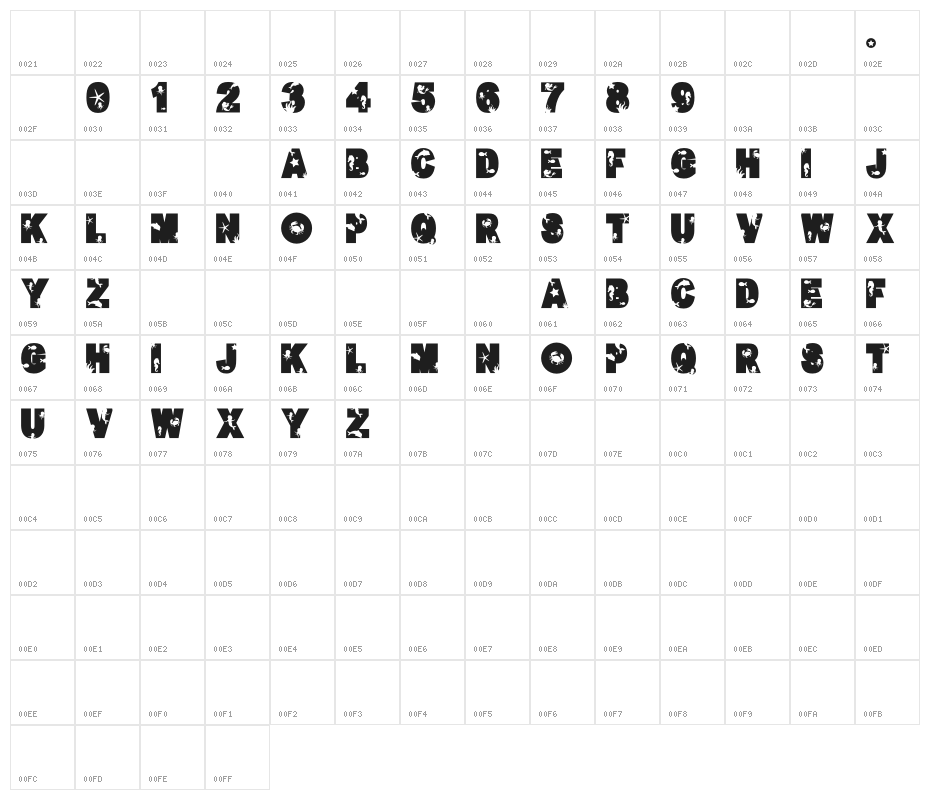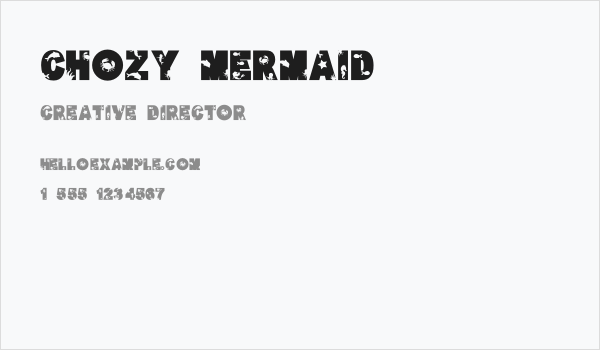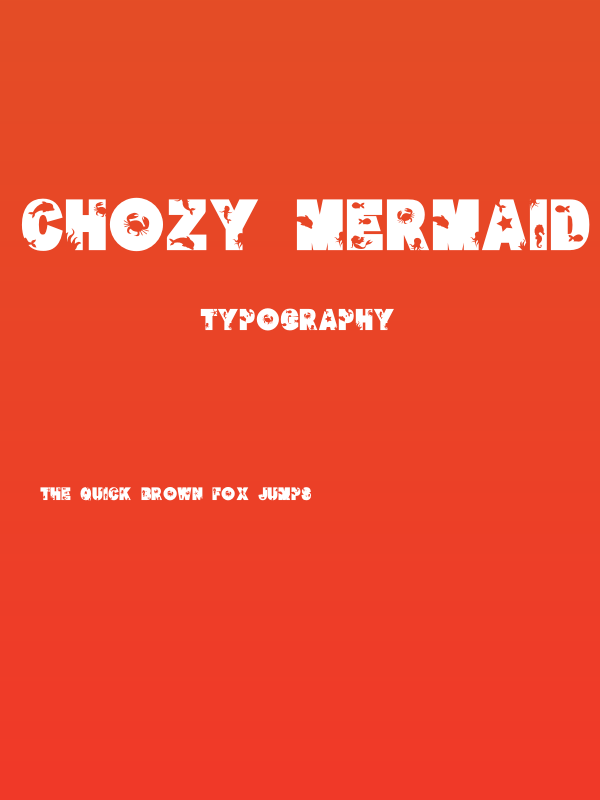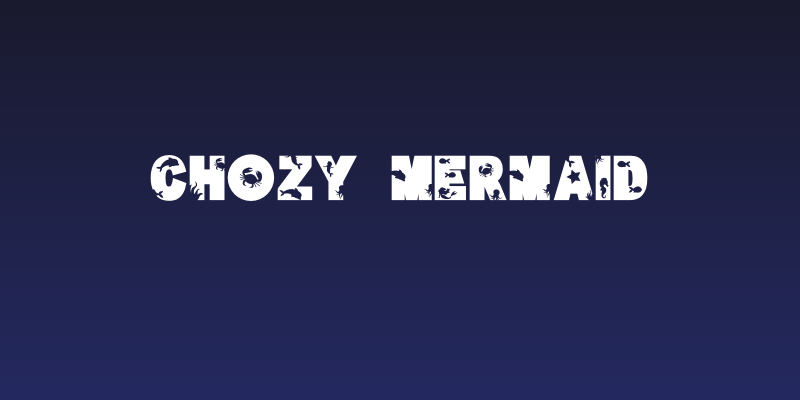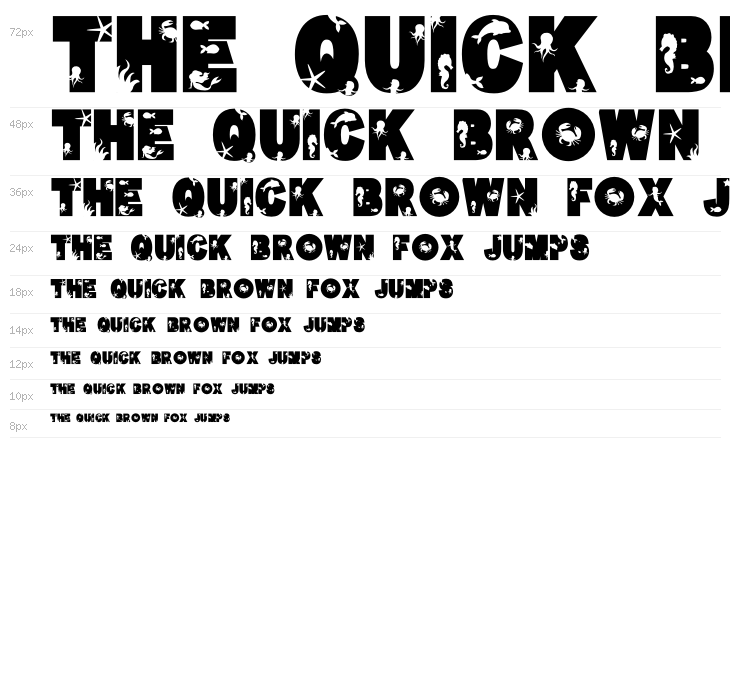
Chozy mermaid Font
Chozy mermaid Description
This decorative font features bold, blocky letters with intricate, whimsical sea-themed cutouts, including mermaids, starfish, and seaweed. The playful design integrates these elements seamlessly into each character, creating a unique and eye-catching style. The uppercase and lowercase letters maintain a consistent weight and width, while the numbers and special characters follow the same thematic design. The font's boldness and decorative nature make it ideal for projects that require a touch of fantasy and creativity.
| Proposed Projects | Ideal for children's book covers, fantasy-themed event posters, or playful branding materials. |